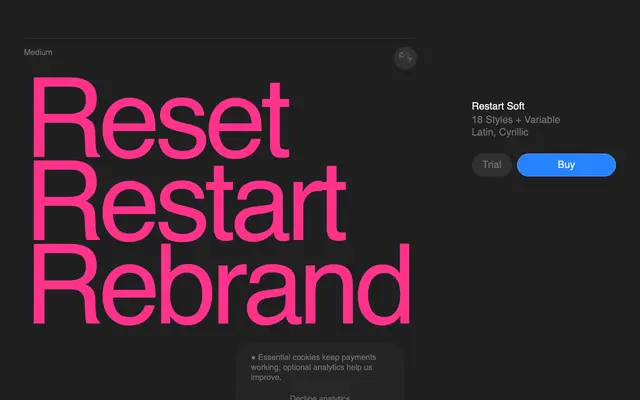
Restart Soft
Superior Type · Vojtěch Říha
A neo-grotesque sans with 18 styles and variable font support, covering Latin and Cyrillic with a generous x-height and tight spacing suited to branding and identity work.
Designed by Vojtěch Říha, Restart Soft follows the neo-grotesque model with clear stroke endings, open spacing and a tall x-height that keeps it legible across a wide range of sizes and contexts. Nine weights run from Thin to Black, each with a matching italic, and the family is also available as a variable font. Latin and Cyrillic script coverage and ten stylistic sets give it reasonable flexibility for multilingual brand applications.
The foundry explicitly describes it as a neo-grotesque sans-serif, characterised by a generous x-height, clear stroke endings and tight spacing — consistent hallmarks of the neo-grotesque tradition.